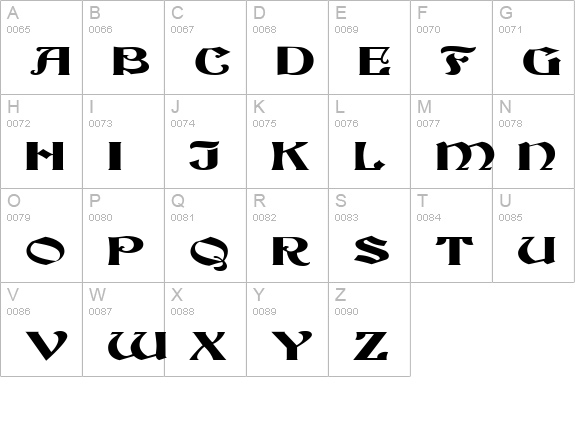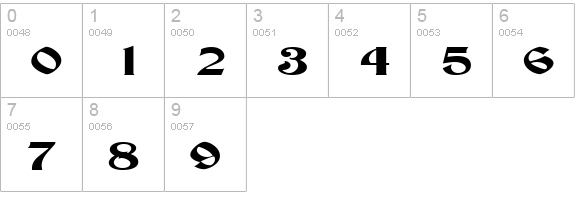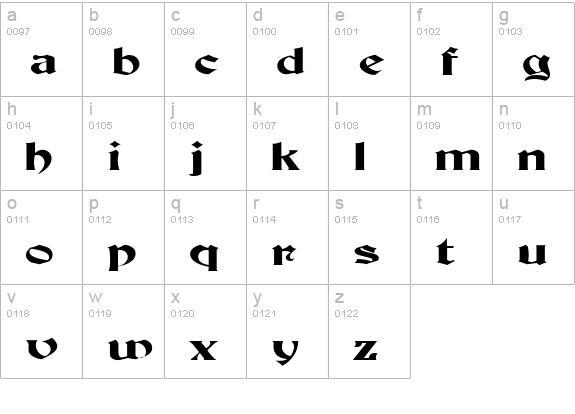
BuckinghamWide Regular Font Details
BuckinghamWide Regular is the standard, neutral variant in the BuckinghamWide typeface family \xE2\x80\x94 well suited to general body text, paragraphs, and standard typographic work.
BuckinghamWide Regular font is a classic and elegant typeface that exudes sophistication and charm. With its timeless design and clean lines, this font is perfect for a wide range of design projects, from invitations to branding to web design. The generous spacing between letters adds a touch of airiness and readability to the text, making it a versatile choice for both print and digital applications. The best part? BuckinghamWide Regular font is available for free download at FontsMarket.com. Whether you're a graphic designer looking to add a touch of elegance to your projects or a blogger in need of a stylish font for your website, BuckinghamWide Regular is the perfect choice. Download it today and elevate your designs with this beautiful and versatile typeface.